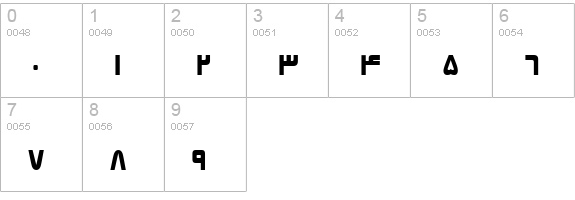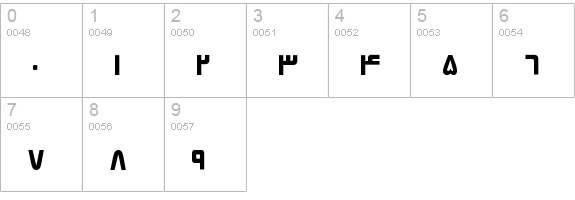
B Elham Font Details
B Elham font is a modern and stylish typeface that exudes elegance and sophistication. Its sleek lines and unique curves make it perfect for a wide range of design projects, from branding to packaging to editorial layouts. The font's versatility allows it to be used in both bold headlines and delicate body text, ensuring that your message is always conveyed in a clear and impactful way. What sets B Elham font apart is not just its visual appeal, but also its accessibility. This high-quality font is available for free download at FontsMarket.com, making it easily accessible to designers and creatives looking to elevate their projects without breaking the bank. With B Elham font, you can add a touch of class and sophistication to your designs, all while staying within budget.